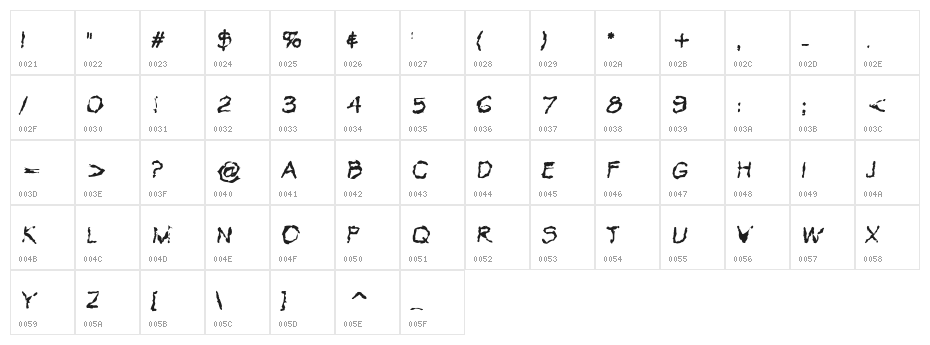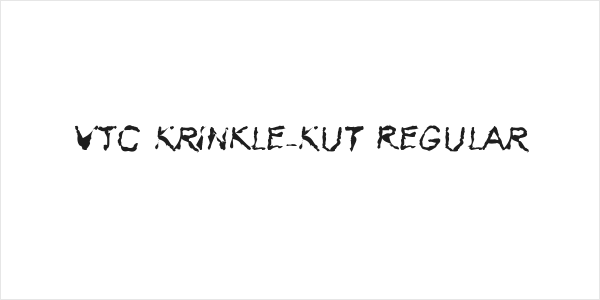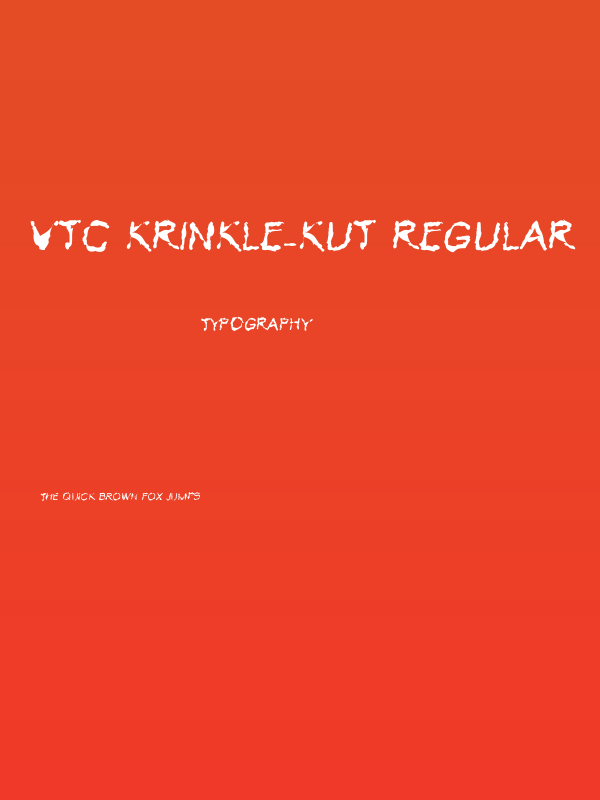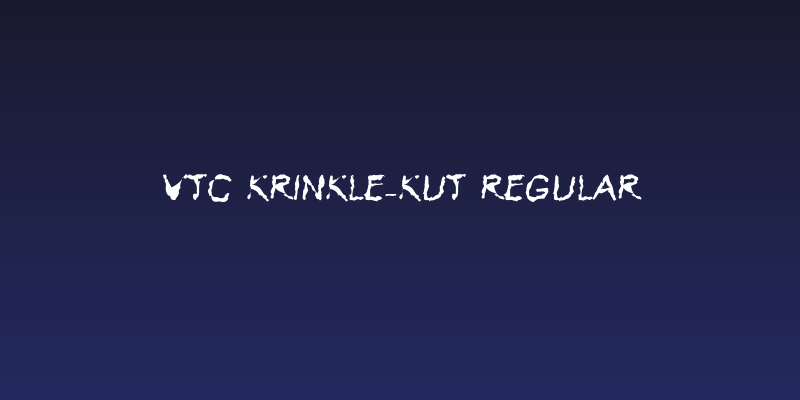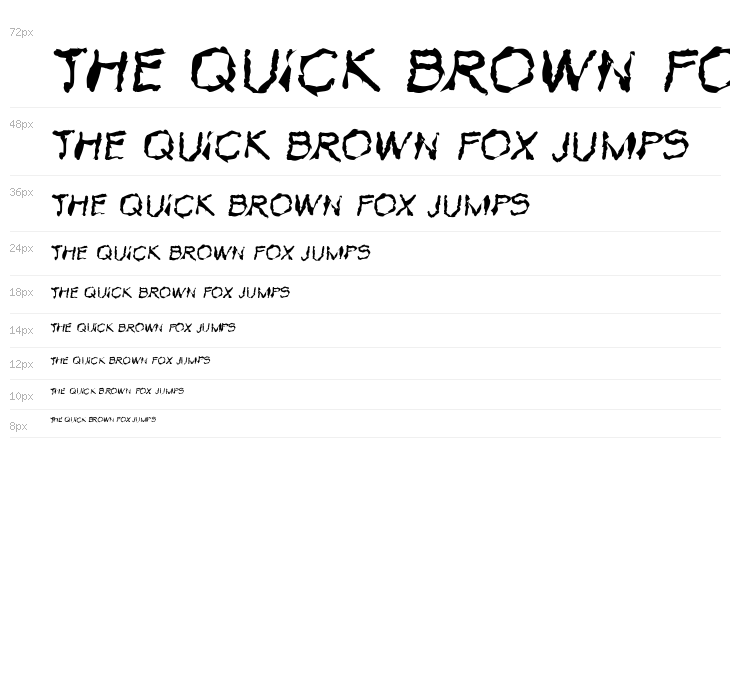
VTC Krinkle-Kut Regular Font
VTC Krinkle-Kut Regular Description
This font features a unique, jagged design that gives it a distressed and edgy appearance. Each character appears as if it has been cut or torn, creating a rugged texture that stands out. The irregular edges and varying stroke thicknesses contribute to its distinctive style, making it ideal for projects that require a bold and unconventional look. The uppercase and lowercase letters maintain a consistent style, while the numerals and special characters complement the overall aesthetic. This font is perfect for creative projects that aim to capture attention with a raw, artistic flair.
| Proposed Projects | Ideal for album covers, posters, graffiti art, and edgy branding projects. |